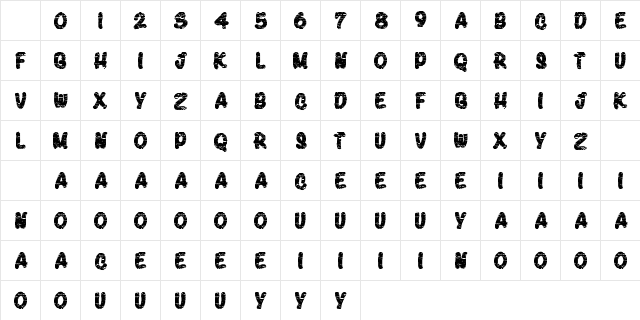
Halloween Grunge embraces imperfection - its rough, textured character adds raw authenticity to designs that want to feel lived-in and unconventional.
Pro Tip: Use Halloween Grunge at larger sizes where the texture and irregularity of each letterform can be clearly seen - it loses its character at small sizes.